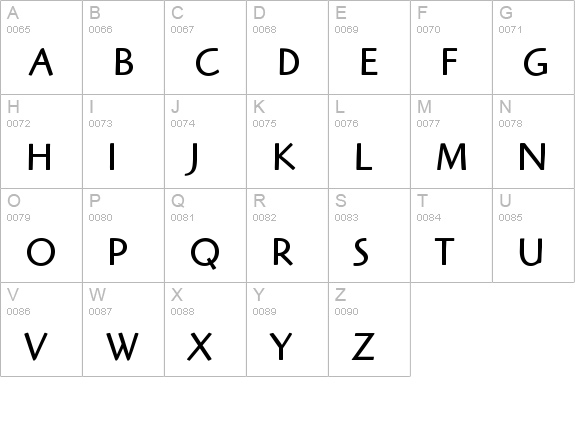
HighlanderEF-Book is a comfortable, highly readable variant in the HighlanderEF typeface family \xE2\x80\x94 well suited to long-form body text, articles, and editorial content.
HighlanderEF-Book is a classic and elegant font that exudes sophistication and refinement. With its timeless appeal and versatile design, this font is perfect for a wide range of creative projects, from branding to editorial design. The clean lines and balanced proportions of HighlanderEF-Book make it a great choice for both print and digital applications. Best of all, HighlanderEF-Book is available for free download at FontsMarket.com. This means you can easily access this high-quality font without any cost, making it a valuable addition to your font library. Whether you're a professional designer or a hobbyist looking to elevate your projects, HighlanderEF-Book offers the perfect blend of style and accessibility. Download it today and unleash your creativity with this exceptional typeface.